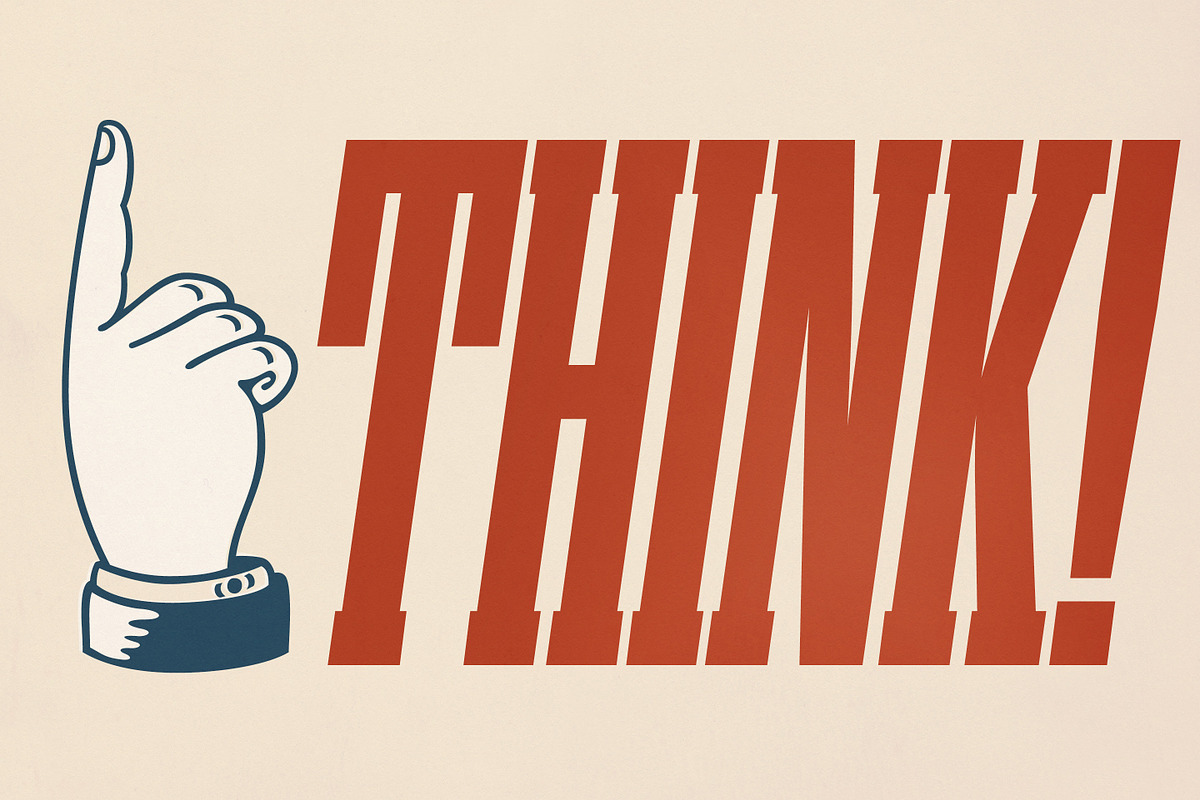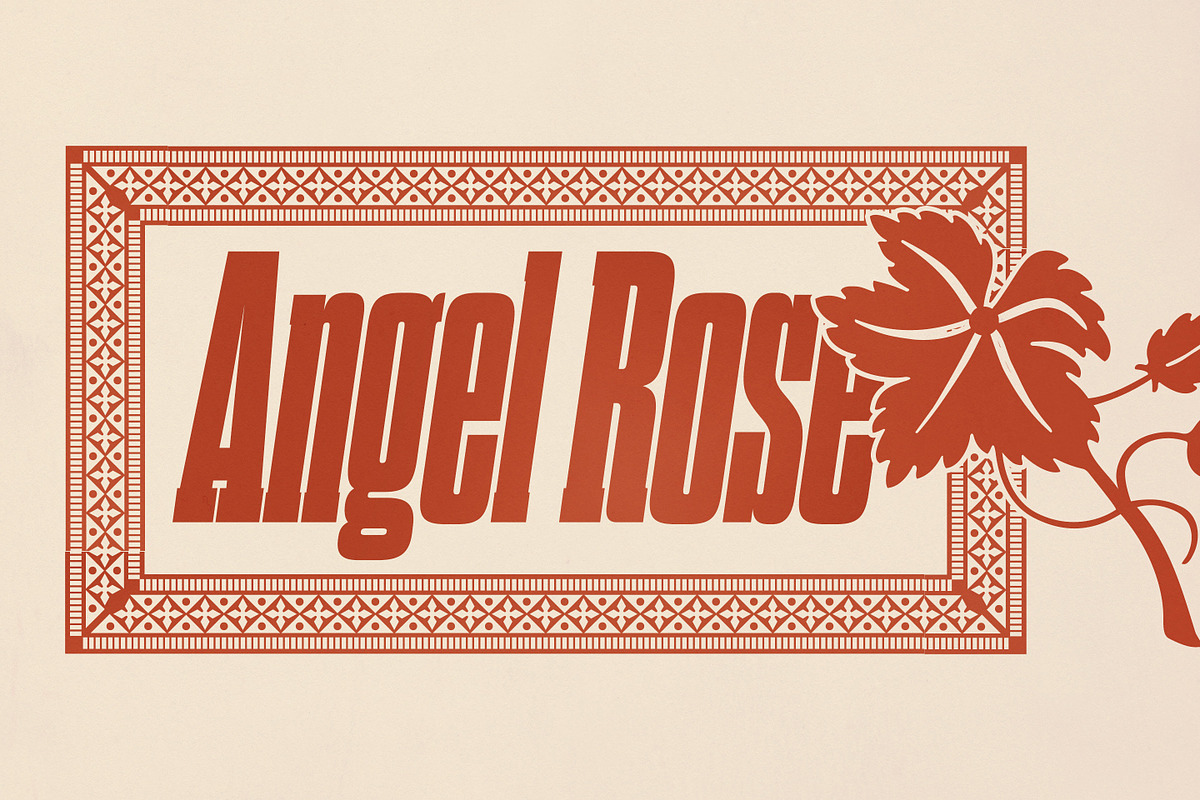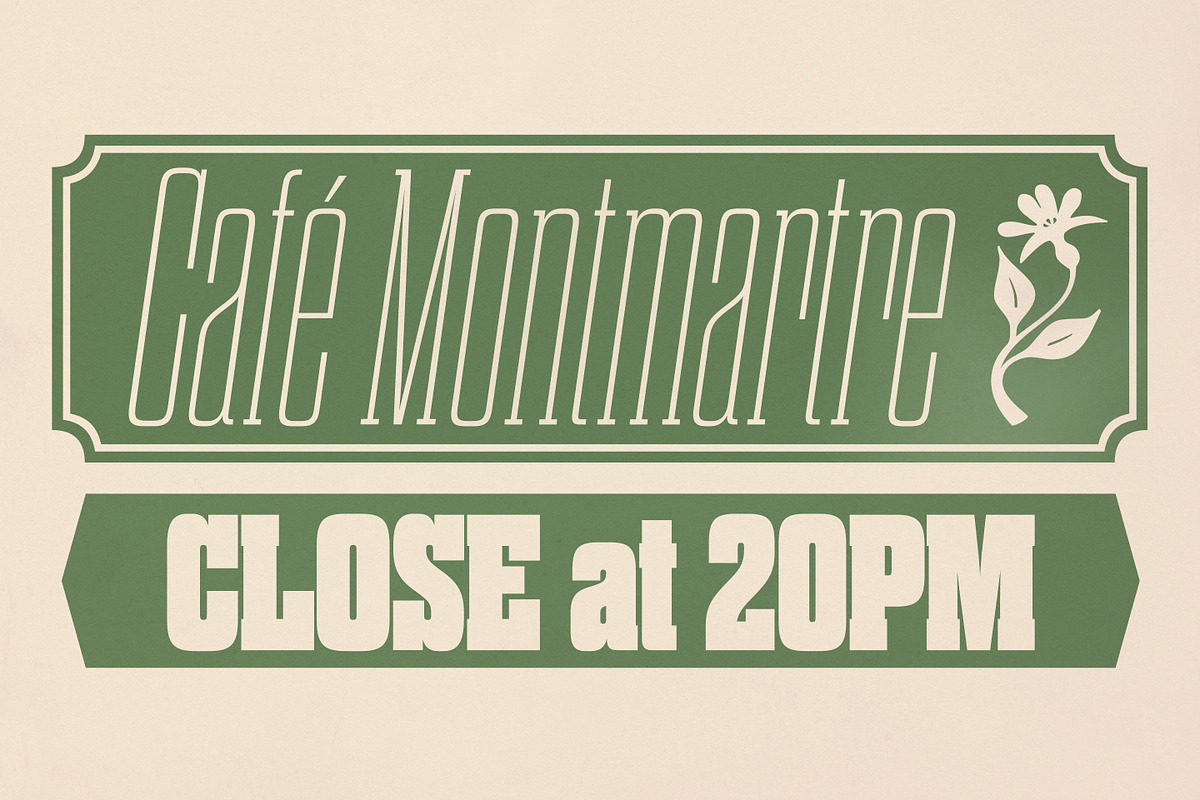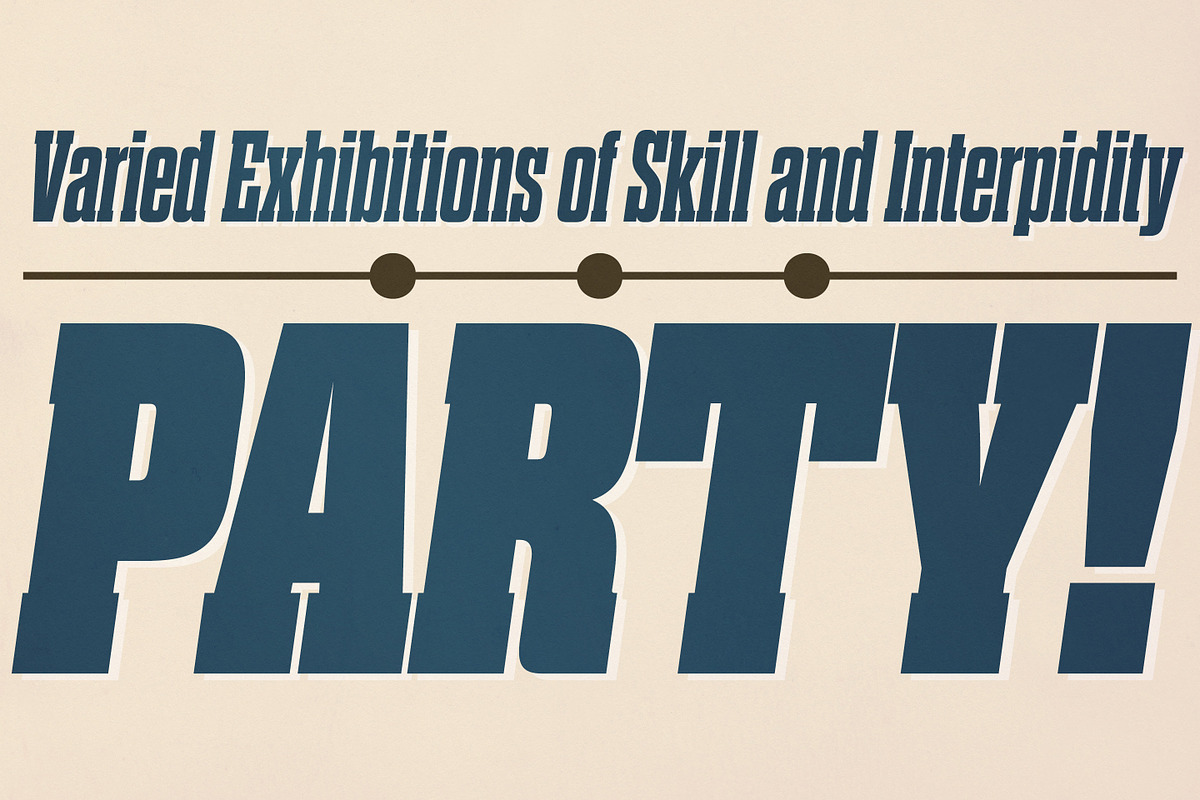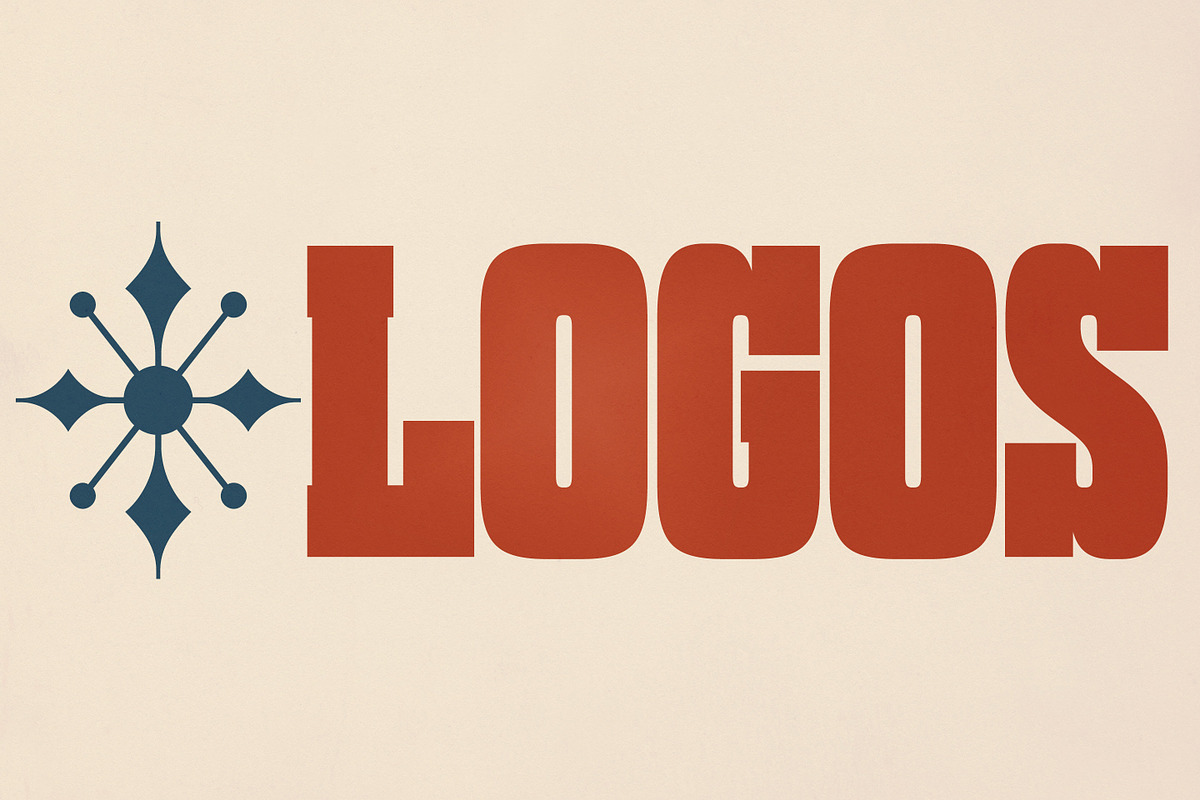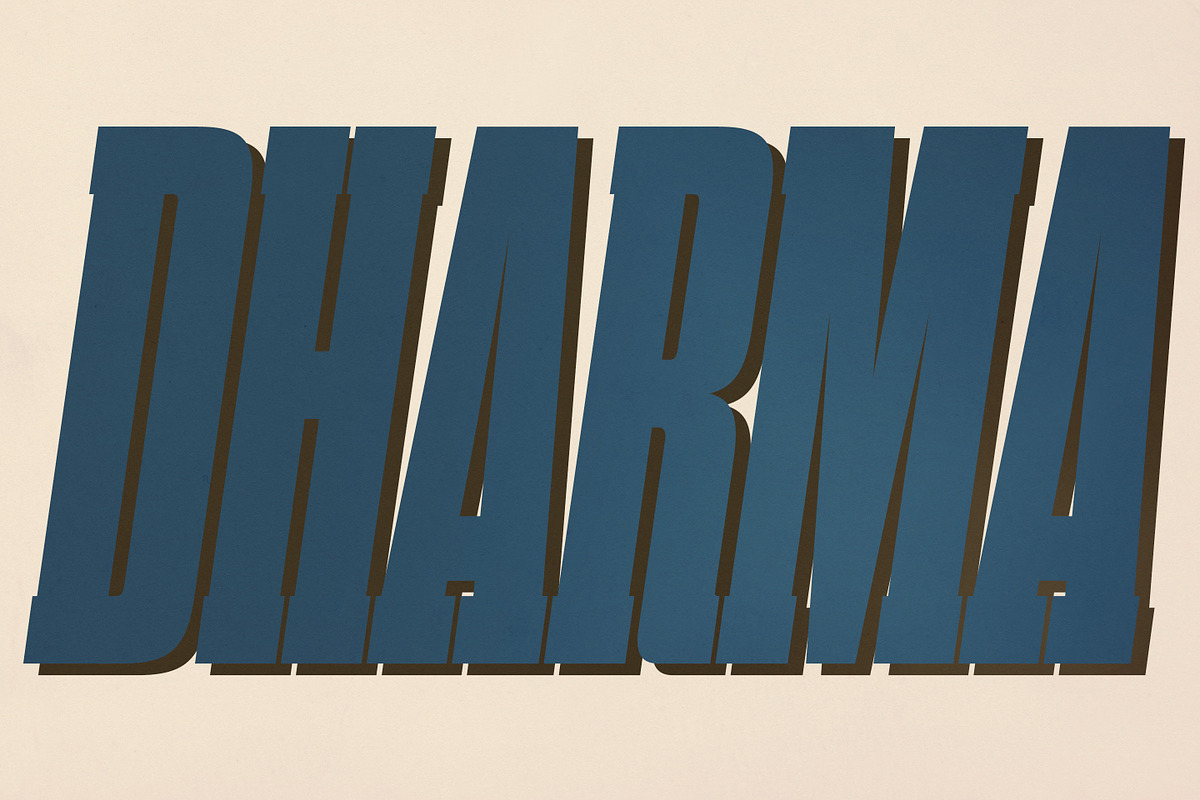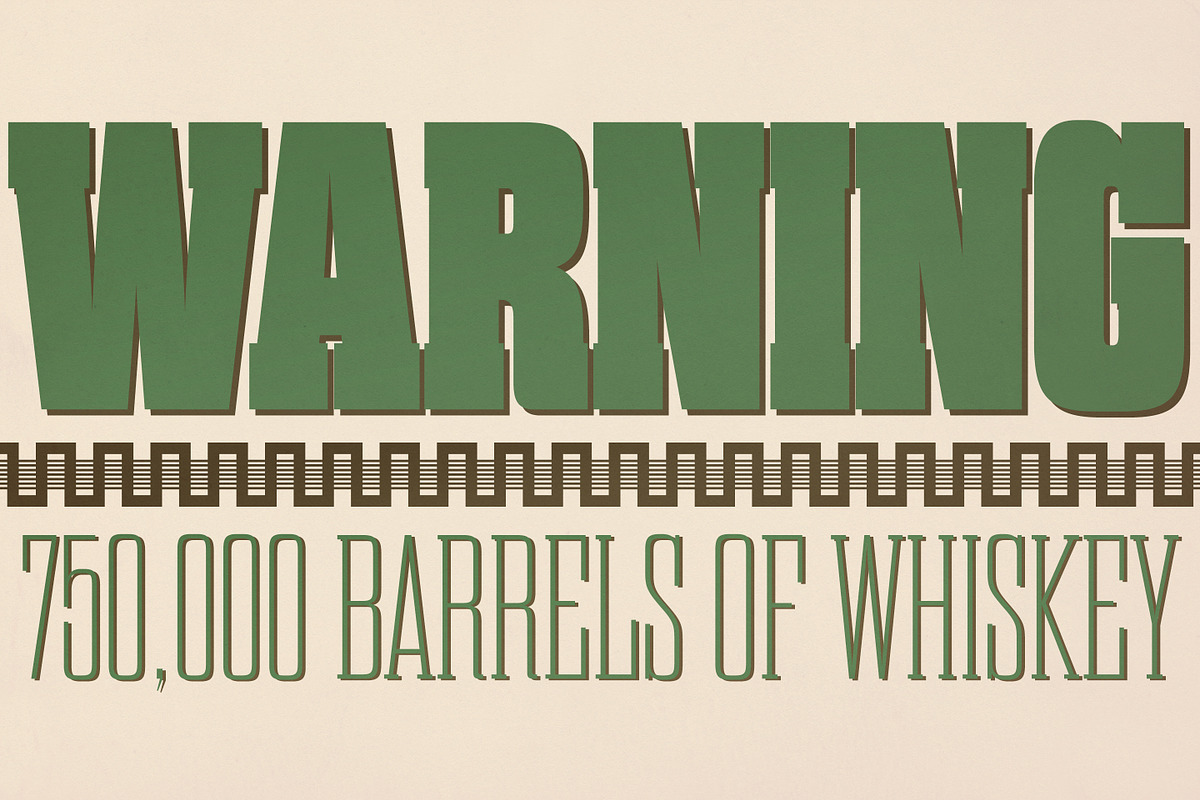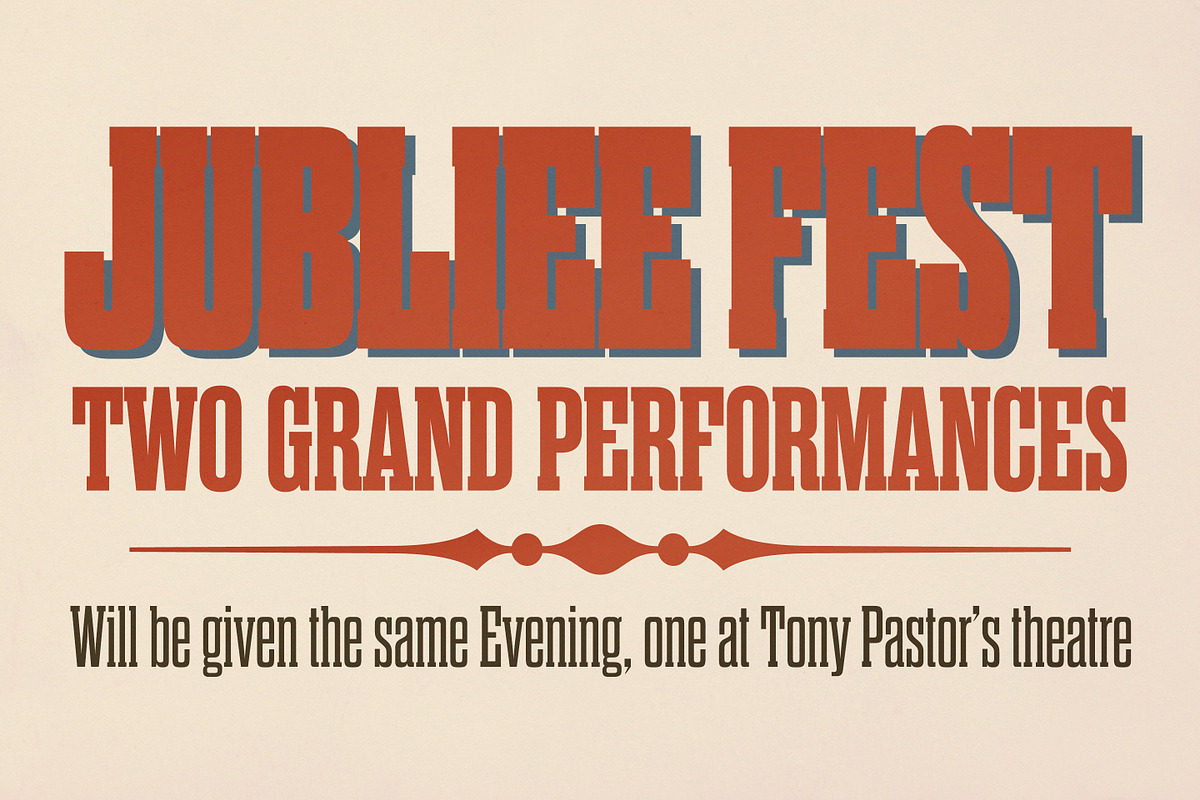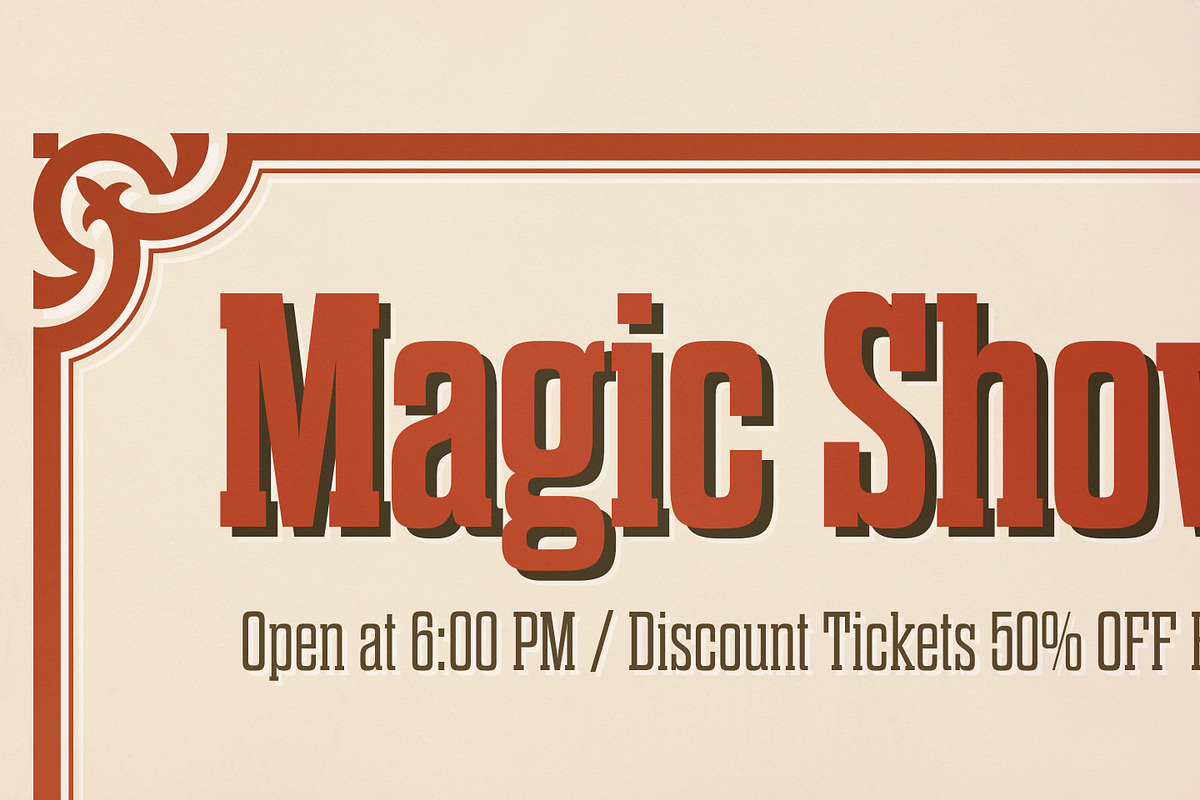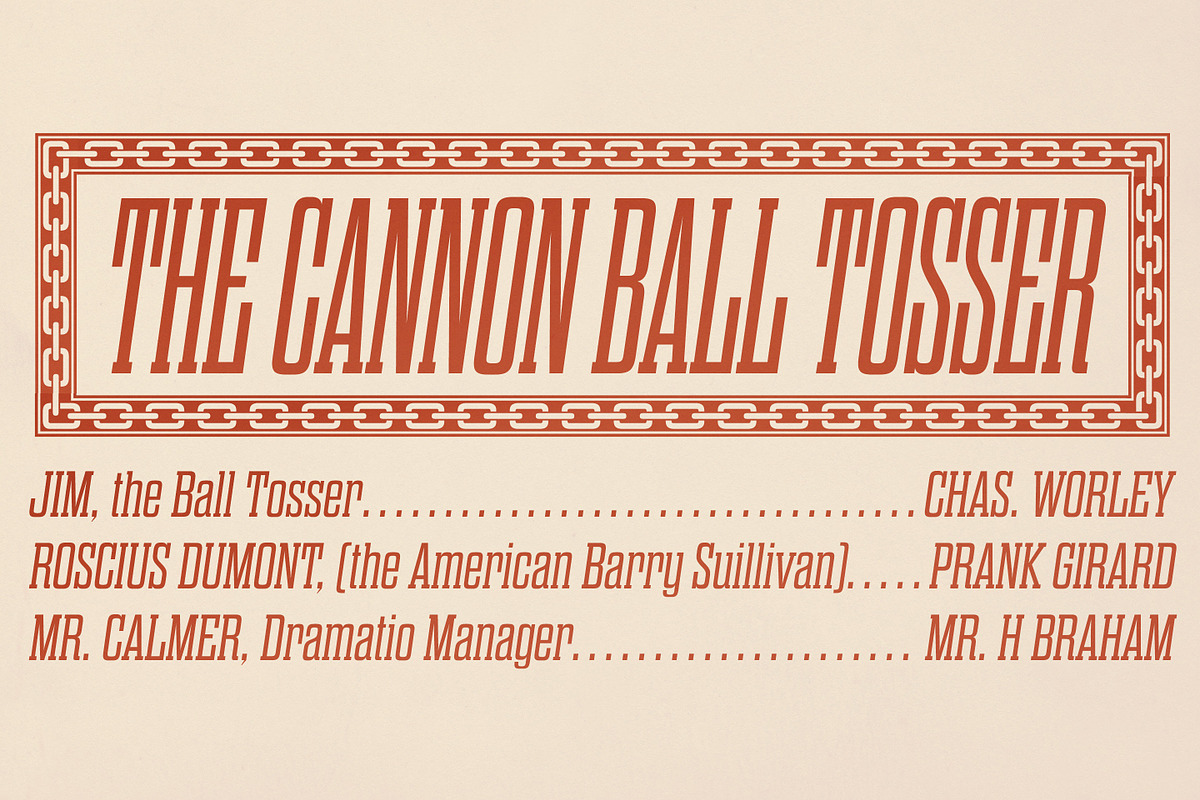
Dharma Slab
Dharma Slab is an antiqued slab serif inspired by 1800s-style wood type. Each glyph has been carefully crafted to capture the retro look of the past, evoking a deep sense of nostalgia.
This condensed font family includes 42 styles, making it a powerful choice for posters, titles, and any project where bold impact is essential.
To complete your designs, the Gothic Extras family is available—offering a selection of borders, ornaments, and frames based on vintage Hamilton catalogs from the 1800s.
Additionally, the letters g, r, and y include alternate glyphs accessible via the OpenType salt feature, and tabular figures can be enabled with the tnum feature for advanced typographic control.